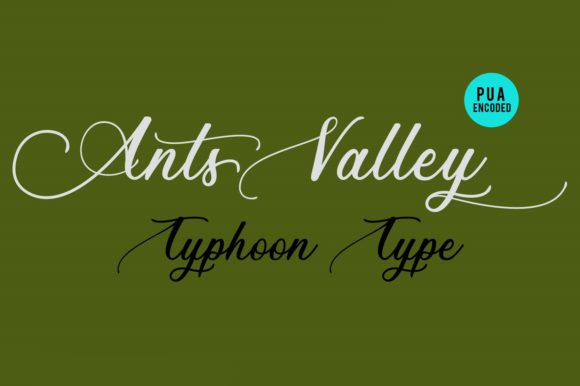
HomeScript FontsAnts Valley Font Script Fonts Ants Valley Font FacebookXPinterestWhatsApp About Ants Valley Font Ants Valley is a sweet and delicious script that will improve any craft with its magical swashes. DOWNLOAD ON CREATIVE FABRICAThis font is sold and delivered by Creative Fabrica. Font Canyon may earn a commission if you buy through this link. People also explored Moving Van JNL Font Amtenli Script Font Argodame Outline Extra Black Font Snowman Font Billytown Font Baby Girl Font Alif Baa Taa Bold Font Nevada Font Menittaya Font 366 0 TagsAnts Valley Font Previous articleBeauty City FontNext articleMighty Font LEAVE A REPLY Cancel reply Comment: Please enter your comment! Name:* Please enter your name here Email:* You have entered an incorrect email address! Please enter your email address here Website: Save my name, email, and website in this browser for the next time I comment. Personal Use Free First Be Lucky Personal Use Free Read more about this font Open Heart Personal Use Free Read more about this font Kinda Sweet Personal Use Free Read more about this font Ayam Bakar Personal Use Free Read more about this font BLOG Top 10 Handwritten Fonts That Elevate Your Designs Top 10 Handwritten Fonts That Will Elevate Your Designs Handwritten fonts bring a warm, personal touch to every creative project. Whether you're designing logos, invitations,... Top 7 Google Fonts Alternatives for Faster and Privacy-Friendly Web Design (2025) How to Cut Any Font on Cricut: Convert a Font to SVG (Free) To increase your work productivity, choose the most readable fonts.